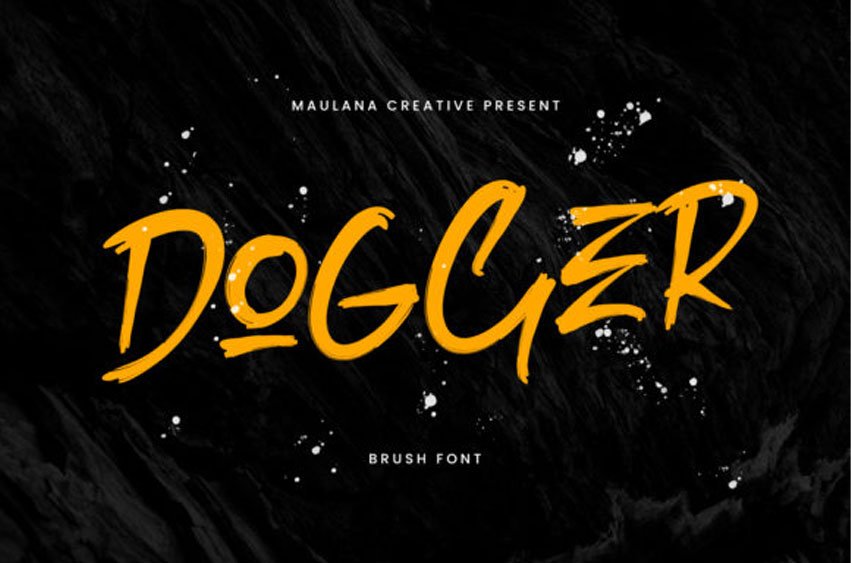
Dogger Font is an urban styled, brushed display font.
Strong lettered and a bit dramatic, this font will make each of your informal designs stand out.
Dogger Font is an urban styled, brushed display font.
Strong lettered and a bit dramatic, this font will make each of your informal designs stand out.